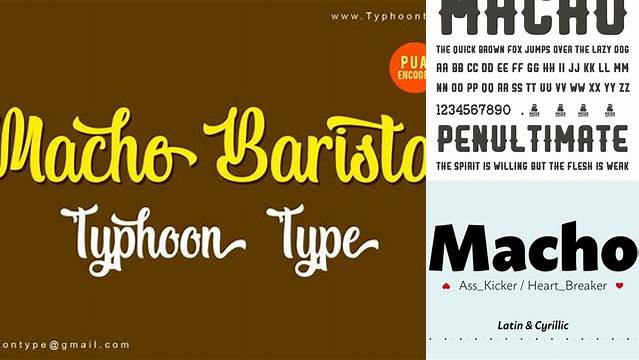
Hey guys! Ready to dive into the world of typography and discover some seriously cool fonts? Today, we're talking about "Macho," a font that lives up to its name and packs a serious punch. This article will explore everything you need to know about free font Macho, from its design aesthetic and ideal uses to how you can download and incorporate it into your projects. If you're looking to add a touch of boldness, strength, and a little bit of attitude to your designs, then you're in the right place. Let's get started and unleash the power of Macho!
What Makes the Macho Font Stand Out?
Alright, let's get down to the nitty-gritty and figure out what makes the Macho font so special, shall we? First off, it's all about the vibe. Macho fonts are known for their strong, assertive presence. Think of it as the typography equivalent of a leather jacket and a confident swagger. The key features of a Macho font often include thick strokes, a robust structure, and a clear, legible design, even at larger sizes. These qualities are super important for grabbing attention and making a statement. When you use a Macho font, you're not just writing; you're making a declaration. It's like saying, "Hey, look at me! I'm here, and I mean business!"
Many Macho fonts also incorporate unique design elements that enhance their visual appeal. These elements can range from slightly rounded corners to sharp, angular details, or even a combination of both. This contrast adds visual interest and prevents the font from appearing too simple or generic. Another critical aspect is its versatility. While Macho fonts have a strong personality, they can still be adapted for various applications. You might see them used in headlines, logos, posters, or even in the body of shorter texts, depending on the design and the overall aesthetic you're aiming for. The best Macho fonts are those that balance boldness with readability, ensuring your message is clear and impactful.
Beyond the visual characteristics, the personality of a Macho font can influence how your audience perceives your message. These fonts often convey a sense of strength, reliability, and confidence. This makes them well-suited for brands or projects that want to project a powerful image or a sense of authority. Think about it: the type of font you choose can completely change how your audience feels about your message. A Macho font can immediately create a sense of impact that is hard to achieve with softer or more delicate typefaces. It's also important to remember the historical context and cultural associations that different font styles carry. Macho fonts often evoke feelings of nostalgia and heritage, especially if they are based on vintage styles or have a retro feel. This is something to consider when you align your project with a specific theme or era.
Best Uses of Macho Fonts: Where Does It Shine?
So, where exactly does a Macho font truly shine? Knowing the perfect places to use this font is essential to maximizing its impact. These fonts are particularly well-suited for a variety of design applications, including, but not limited to the following:
- Logos: Macho fonts can create a strong and memorable brand identity. The boldness and unique design of a Macho font can help your logo stand out, leaving a lasting impression on potential customers. Many companies, especially those in industries like fitness, sports, or construction, choose Macho fonts to convey strength and reliability.
- Headlines and Titles: Use Macho fonts to grab attention in your headlines. Their strong presence ensures your message is the first thing people notice. Whether it's on a website, in a magazine, or on a poster, a Macho font will make your titles pop.
- Posters and Flyers: Create eye-catching posters with Macho fonts. They are perfect for displaying key messages and information in a way that is easy to read and remember. Macho fonts are especially effective for promotional materials for events, sales, and other announcements.
- Website Banners: Add impact to your website banners. With their boldness and distinctive style, Macho fonts ensure your banner messages are not overlooked. The design can also tie into the overall theme of your website.
- Packaging Design: Use a Macho font to emphasize the brand name and product details on packaging. The font choice contributes to the brand image and can make the product appear more premium and appealing to consumers.
- Social Media Graphics: Macho fonts can elevate your social media graphics, ensuring your posts stand out in crowded feeds. Use them for quotes, announcements, or promotional content to boost engagement.
When selecting a Macho font for your project, consider the target audience and the overall message you want to communicate. The goal is to select a font that complements the content and enhances the desired aesthetic. It should also enhance, not distract from, the message. Understanding the strengths and weaknesses of each Macho font is crucial in achieving the best outcome. A well-chosen Macho font will not only capture attention but also convey the message effectively and authentically.
Conclusion: Unleash Your Creativity with Macho Fonts